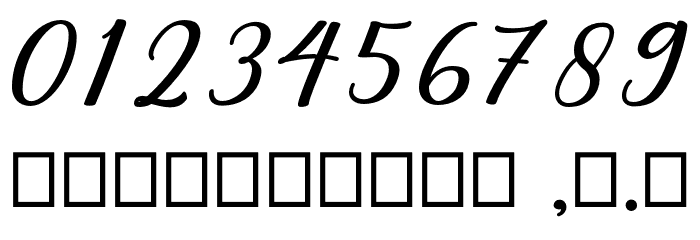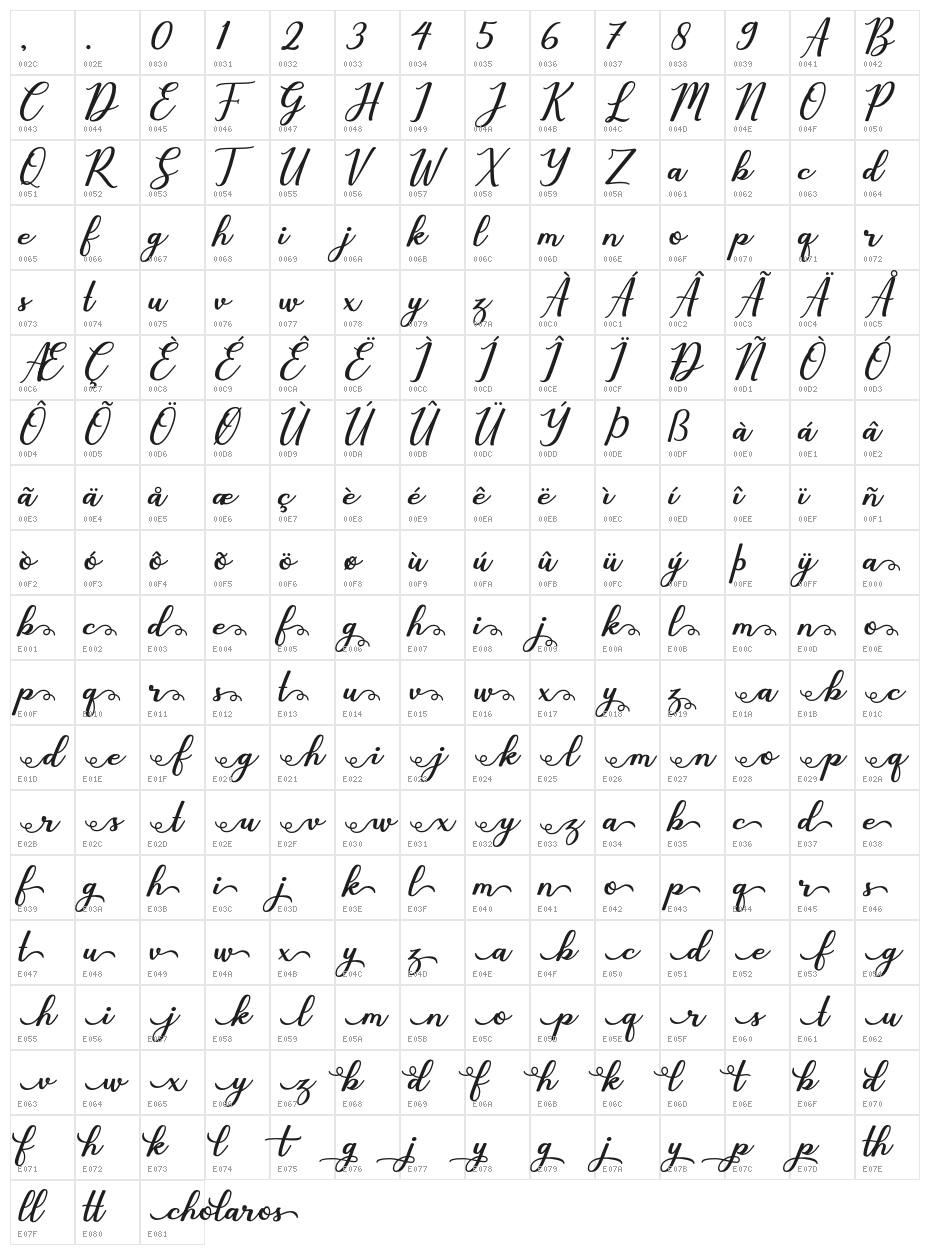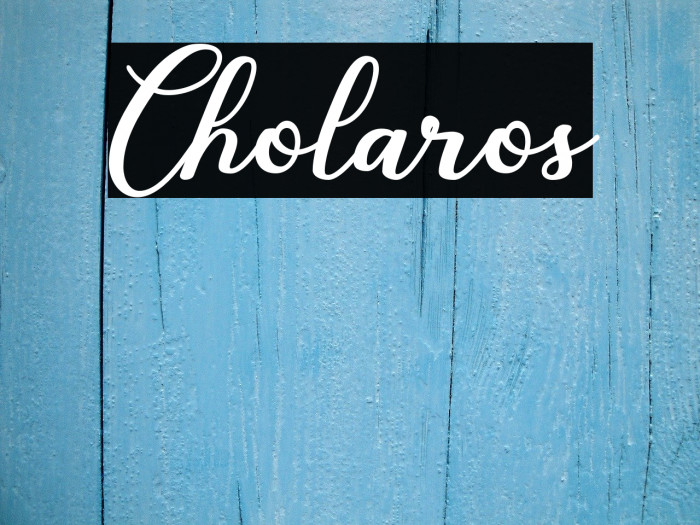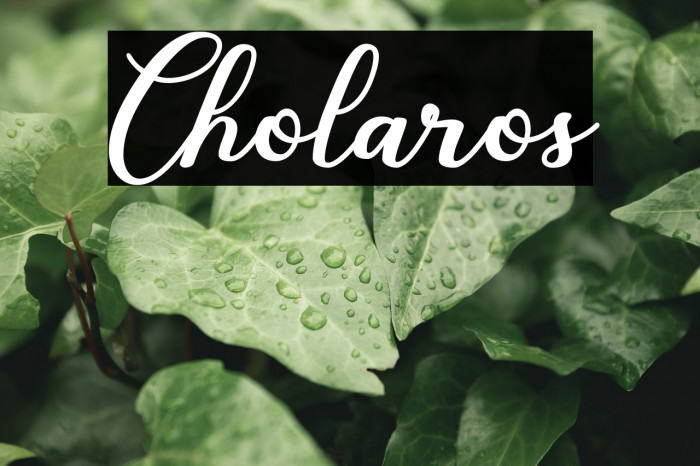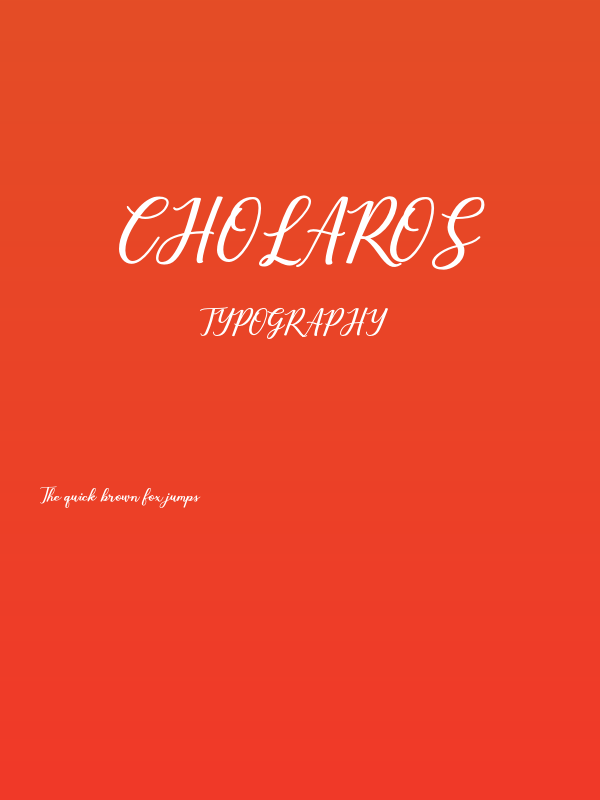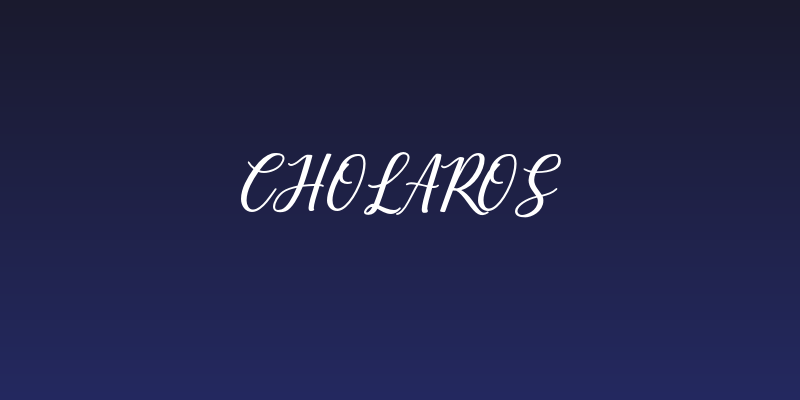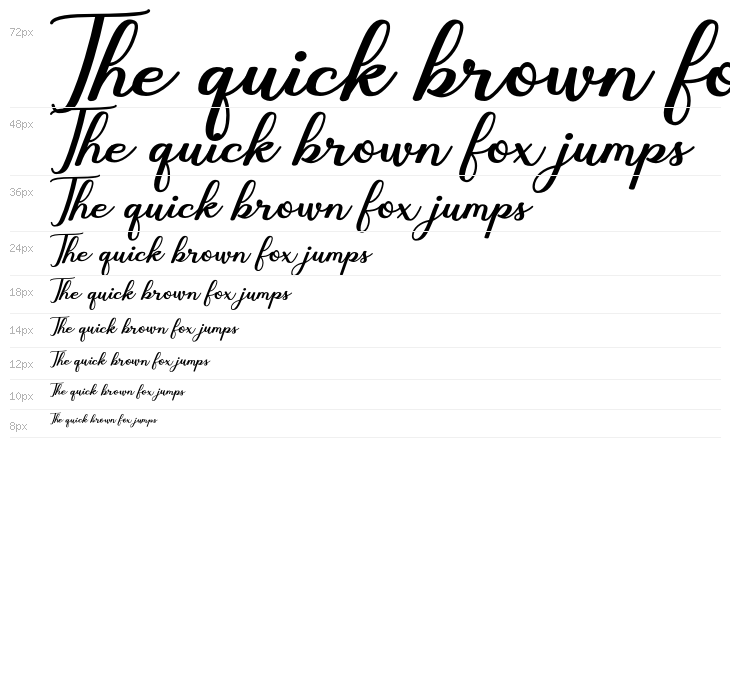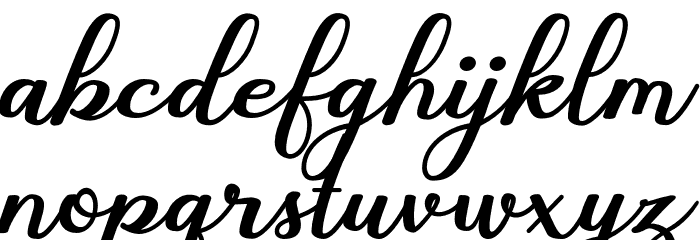
Cholaros Font
Cholaros Description
This font features a flowing, cursive style with elegant, sweeping strokes that give it a sophisticated and artistic appearance. The uppercase letters are tall and graceful, with a slight slant that enhances their fluidity. The lowercase letters maintain a consistent style, with smooth connections between characters, creating a harmonious and seamless look. The numerals are designed to complement the letters, maintaining the same elegant curves and slant. This font is ideal for projects that require a touch of elegance and creativity, such as invitations, branding, and decorative text. The overall style is both classic and modern, making it versatile for various design needs.
| Overall Style | Classic, Modern |
| Proposed Projects | Ideal for wedding invitations, branding, decorative text, and artistic projects. |